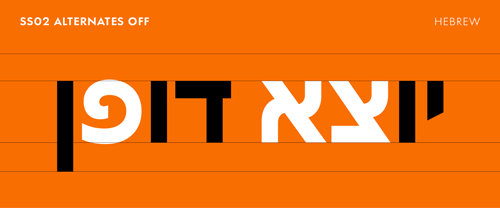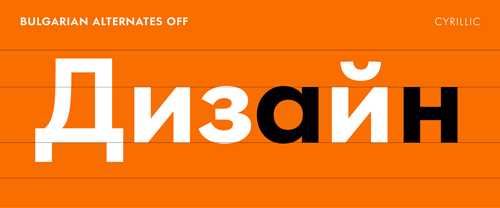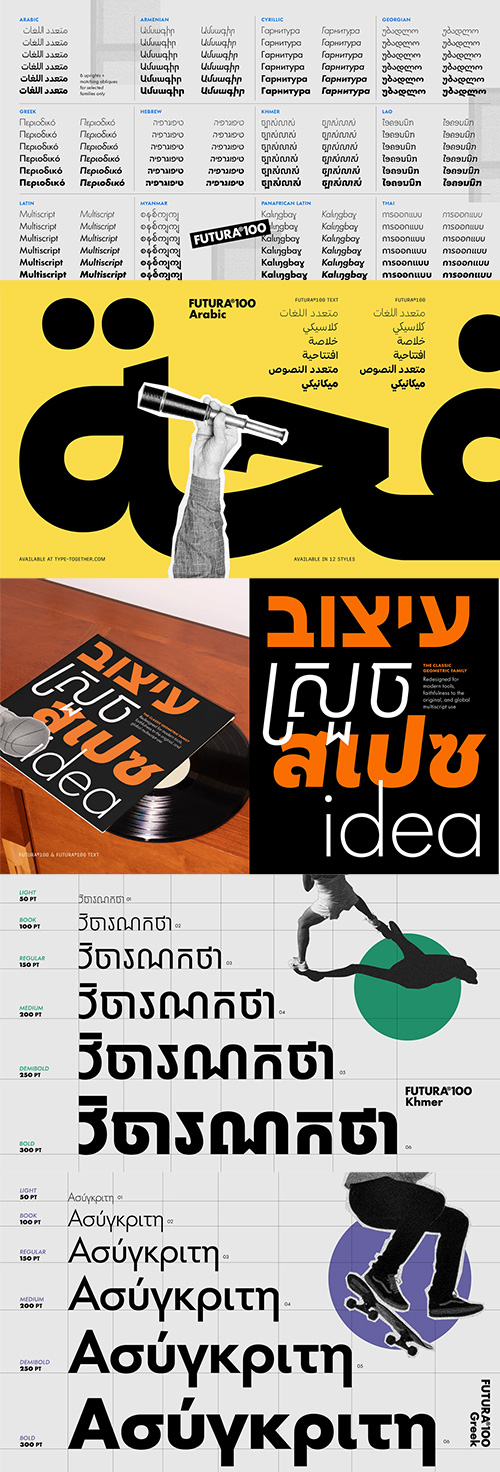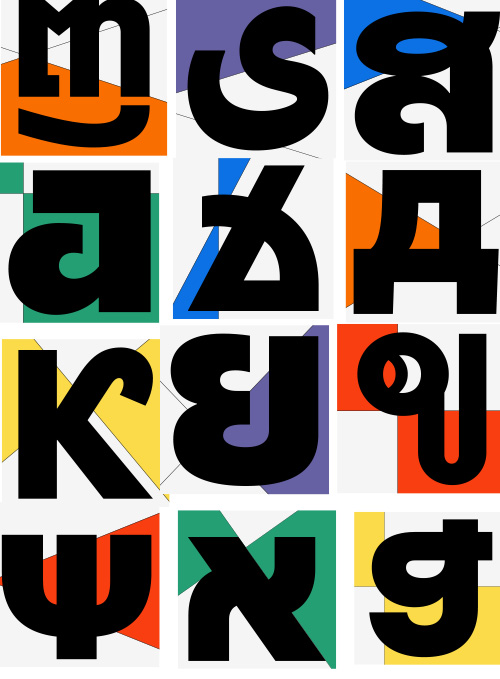
Futura®100 - New Release
12 Language Typesets
Rational and monolinear Lao interpretation
for the iconic multiscript family
Arabic | Armenian | Cyrillic | Georgian | Greek
Hebrew | Khmer | Lao | Mynamar | Panafrican | Thai
- The iconic geometric family for branding, surety, and standout presence — is now one of the few truly global type families. It communicates in 12 scripts and more languages than ever before, including: Arabic, Armenian, Cyrillic, Georgian, Greek, Hebrew, Khmer, Lao, Latin, Myanmar, PanAfrican Latin, and Thai. With upcoming language support for more than 90% of the world’s population, the revitalised warmth of FUTURA®100 is historically introspective, globally applicable, and stylistically comprehensive.